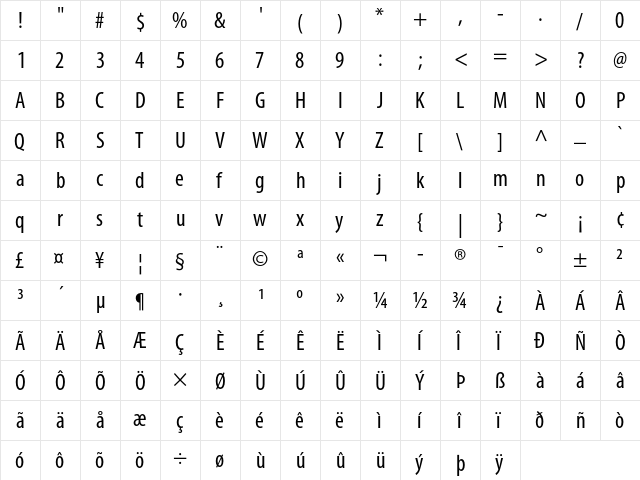
Myriad Condensed
Design Context for Myriad Typeface
Myriad offers clean, dependable letterforms without strong stylistic allegiance, making it a practical choice for designers who need flexibility. Its narrow stance lets it pack a punch even in space-constrained designs.
Pro Tip: Use Myriad in both headline and body roles to test its range before committing to a single application.